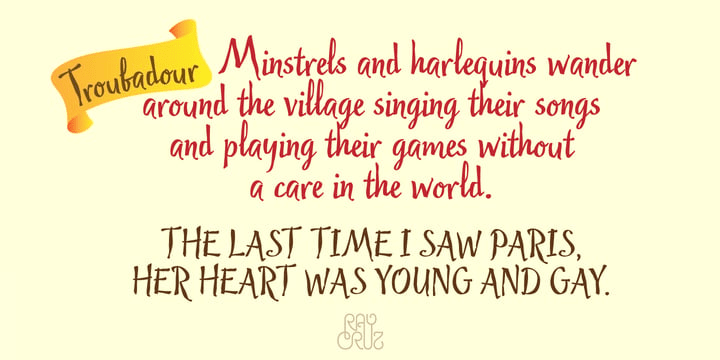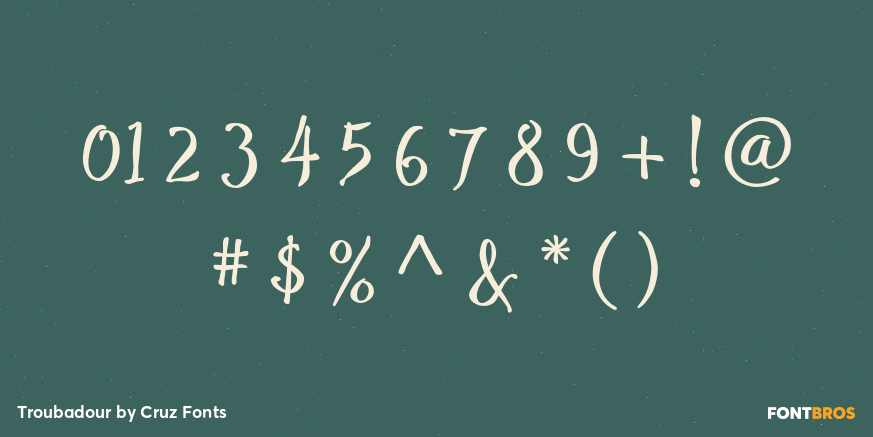
Troubadour
Font Family by Cruz Fonts
Poets and musicians flourishing in southern France and northern Italy during the 11th to 13th centuries.
Troubadour was designed by using a custom brush created with Adobe Illustrator. A digital tablet was used to draw all the characters in the font. The thick and thin strokes were created by applying pressure to the pen, like jesters dancing and bouncing in the streets as the music played.